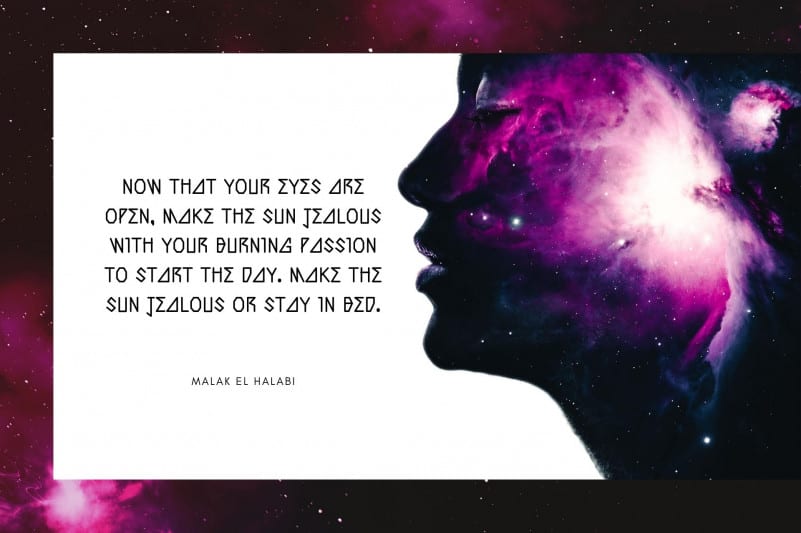
Phalang Display Font
Phalang Display Font is created from inspirational movie that everybody loves to tell about how space and its living creatures in it.
Phalang consists of lines and basic shapes that we composed to suit the cultural accent of outer space. It is also equipped with both uppercase and lowercase and ready to make your design look awesome!.